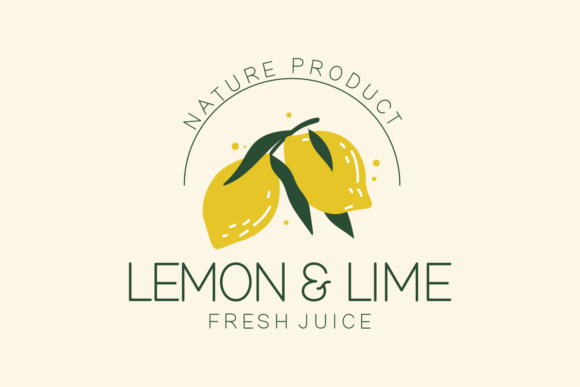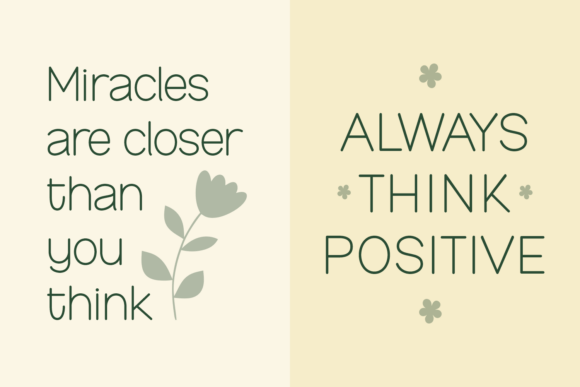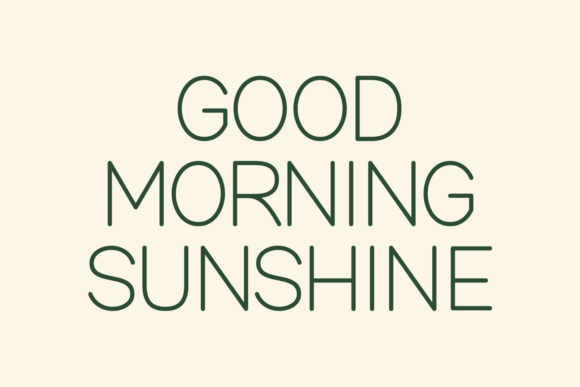
Introduction to Minimalist Lemonade Font
Do you remember that moment when you finally nailed the design for your brand’s logo, and everything just fell into place? It’s a feeling that’s hard to replicate, but with the right tools, it’s definitely achievable. For designers like us, finding the perfect font can be the difference between a good design and a great one. And that’s exactly what the Minimalist Lemonade Font offers – a high-quality, free download that’s perfect for any creative project.
As a valuable design resource, Minimalist Lemonade Font has the potential to become your go-to font for every occasion. Its stunning sans serif design makes it ideal for creating beautiful headings, stunning logos, and social media graphics with a transparent background. Whether you’re working on a personal project or a client’s design, this font is sure to elevate your work and make it stand out from the crowd.
Key Features of Minimalist Lemonade Font
- High-quality design for creative projects, offering a unique and modern aesthetic.
- Features a transparent background, allowing for versatile usage and easy layering.
- Designed with a clean and minimalist style, perfect for branding, logos, and editorial content.
Honest Review: Minimalist Lemonade Font
I recently stumbled upon the Minimalist Lemonade Font, and I must say, it’s been a game-changer for my creative projects. The font is free to download, which is always a bonus when it comes to design resources.
Here are some things that work well with the Minimalist Lemonade Font:
- High-quality design: The font is clean, modern, and has a professional look to it.
- Transparent background: This makes it easy to use the font on any background, without worrying about it getting lost.
- Perfect for creative projects: I’ve used it for social media graphics, blog posts, and even a few business cards.
- ⚠️ Limited font variations: While the font is nice, it’s not a huge family with multiple weights and styles.
- ⚠️ Not suitable for complex text: The font is best used for short, snappy text, rather than long blocks of text.
Overall, I’m really impressed with the Minimalist Lemonade Font. It’s a great addition to my design toolkit, and I’d definitely recommend it to others looking for a high-quality, free design resource.
Tips for Getting the Most Out of Minimalist Lemonade Font
Experiment with different font sizes and colors to achieve a high-quality design. Use the font in conjunction with other design elements, such as graphics and images, to add depth and interest to your design. Consider using the font in a creative project, such as a branding or marketing campaign, to make a lasting impression.
Common Use Cases for Minimalist Lemonade Font
The Minimalist Lemonade Font is ideal for use in a variety of applications, including branding, marketing, and creative projects. It’s also a great choice for designers who want to add a touch of elegance and sophistication to their designs.